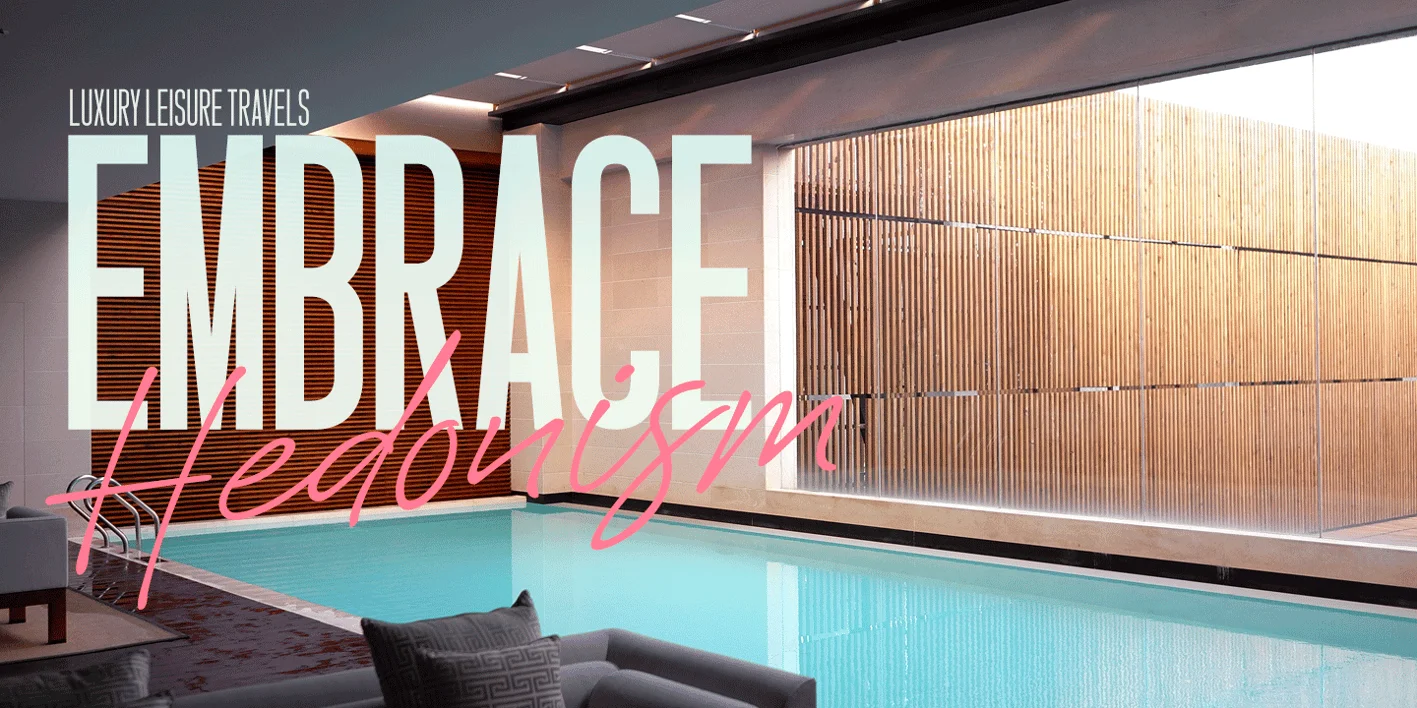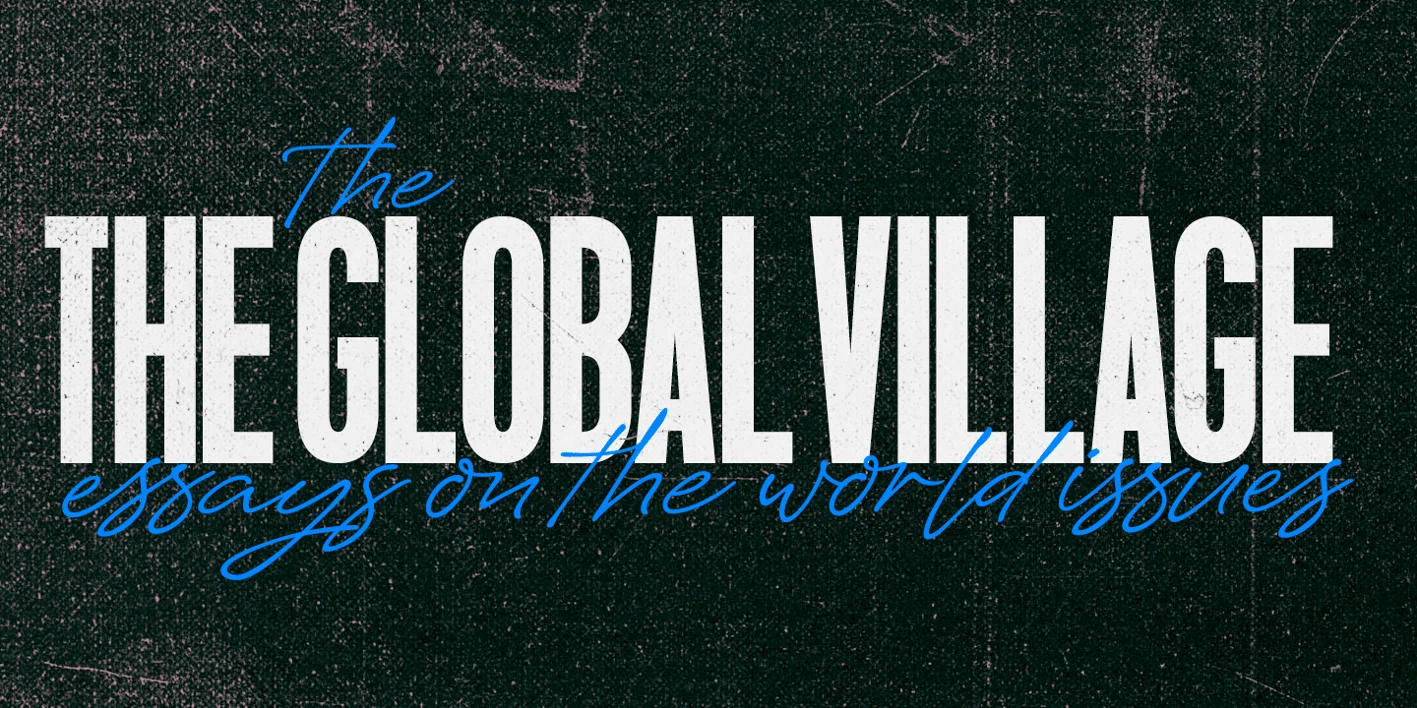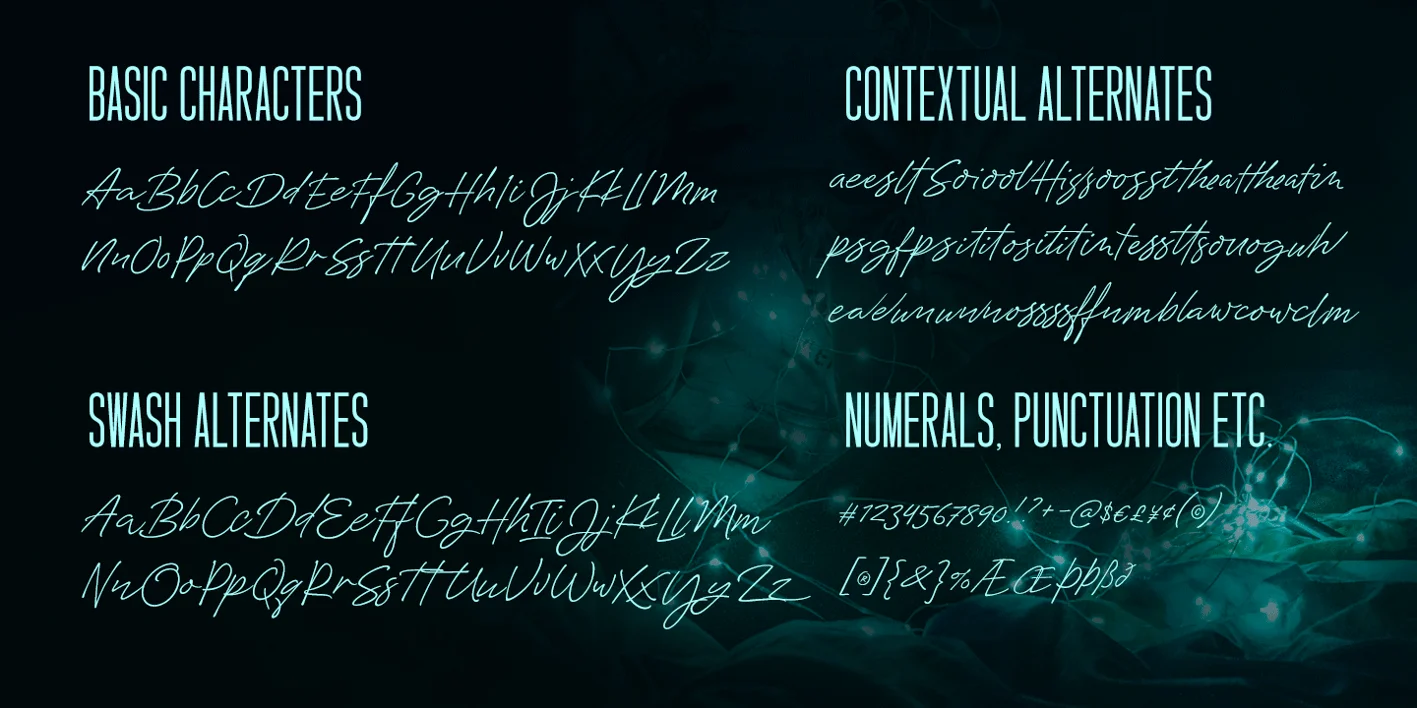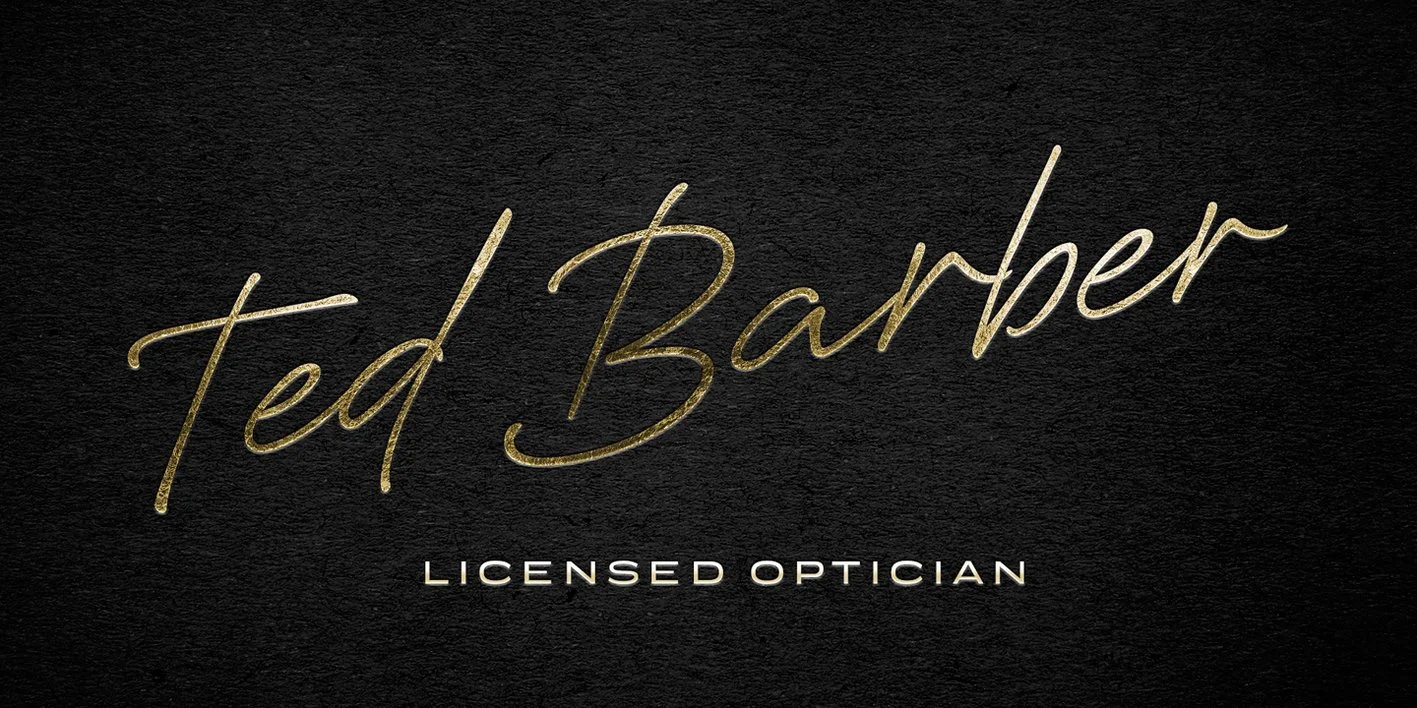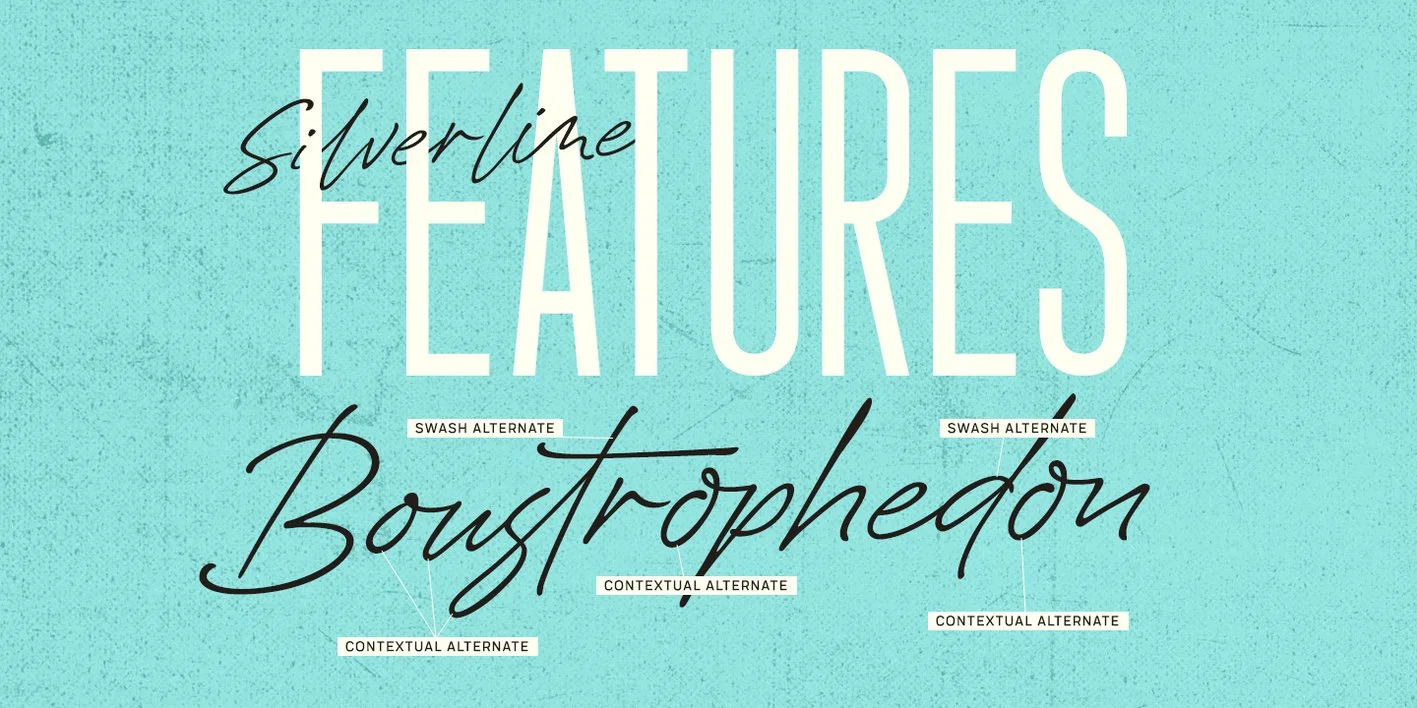
Silverline Font
Silverline Font is perfect for luxury jewelry branding, premium automotive advertising, high-end tech product launches, executive financial services, sophisticated watch collections, platinum membership cards, silver anniversary celebrations, elegant fashion boutiques, upscale real estate marketing, and refined corporate communications. This sleek typeface brings metallic sophistication and premium elegance to any luxury-focused design project.
Silverline Font is exciting because it embodies the lustrous beauty and refined elegance of precious silver, featuring clean, sophisticated letterforms that shimmer with understated luxury and timeless class. Its metallic character instantly conveys premium quality, exclusivity, and the sophisticated taste of discerning clientele.
The Silverline Font family includes Thin, Light, Regular, Medium, Bold, and Black weights with matching italics, plus outline variants and gradient-ready styles that enhance the metallic appearance, providing designers with comprehensive tools for creating typography that gleams with luxury and sophisticated refinement.
Silverline Font offers luxury brand designers access to one of the most elegantly sophisticated typefaces available for premium design applications. This exceptional font has gained recognition among high-end retailers, luxury service providers, and premium product manufacturers for its ability to communicate exclusivity and refined taste through typography that embodies metallic elegance.
Luxury brand designers love Silverline Font for its exceptional ability to convey premium quality and sophisticated elegance through carefully crafted letterforms. The font's sleek character and polished appearance create immediate associations with precious metals, luxury craftsmanship, and the exclusive experiences that define premium lifestyle brands and high-end consumer markets.
The design philosophy behind Silverline Font celebrates the timeless appeal of silver as a symbol of elegance, durability, and refined taste, making it particularly effective for brands seeking to establish connections with luxury markets and sophisticated consumers who appreciate quality, exclusivity, and understated elegance in their purchasing decisions.
Whether used for platinum credit card designs, luxury automotive branding, or high-end jewelry collections, Silverline Font delivers the perfect balance of sophistication and metallic brilliance. Its premium appeal and luxurious authenticity make it an indispensable choice for brands that celebrate excellence, exclusivity, and the refined elegance that defines true luxury experiences.